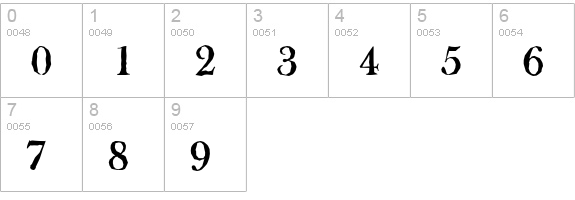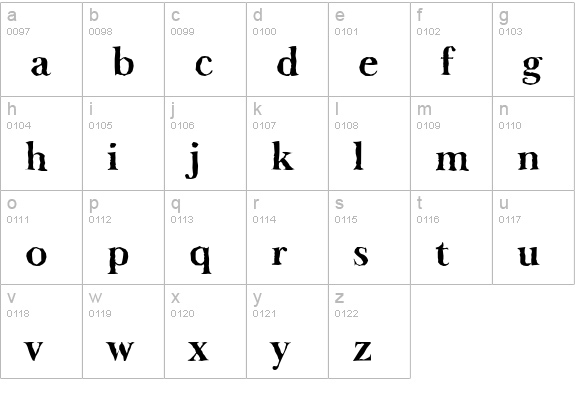
BaskerOldAntique-Bold is a strong, high-contrast variant in the BaskerOldAntique typeface family \xE2\x80\x94 well suited to headlines, attention-grabbing titles, and strong calls-to-action.
BaskerOldAntique-Bold font is a timeless and elegant typeface that exudes a sense of nostalgia and sophistication. With its bold and distinctive letterforms, this font is perfect for making a statement in headlines, titles, and other prominent text settings. The intricate detailing of the characters adds a touch of vintage charm to any design project. Best of all, BaskerOldAntique-Bold font is available for free download at FontsMarket.com. Whether you're working on a classic branding project, a vintage-inspired poster, or any other creative endeavor, this font will elevate your design and give it a touch of old-world elegance. Don't miss out on the opportunity to enhance your work with this beautiful and versatile typeface, now easily accessible at FontsMarket.com.